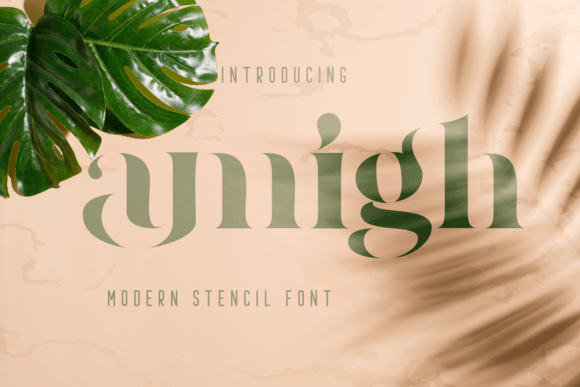
Introducing Amigh Font: Elevate Your Designs with Elegance and Sophistication
In the world of typography, a font can make or break the visual appeal of a design. If you’re looking for a stylish and elegant serif font that can add a touch of sophistication to your presentations, logos, or marketing materials, look no further than Amigh Font. This stunning font is designed to make your designs stand out from the crowd, with a range of ligatures and alternates that will take your creative projects to the next level.
What is Amigh Font?
Amigh Font is a beautifully crafted serif font that exudes elegance and refinement. Its classic design makes it perfect for a wide range of applications, from luxury brands and high-end products to editorial designs and digital media. With its sophisticated look and feel, Amigh Font is sure to impress your audience and leave a lasting impression.
Key Features of Amigh Font
So, what sets Amigh Font apart from other fonts on the market? Here are some of its key features:
- Ligatures and Alternates: Amigh Font comes with a range of ligatures and alternates that allow you to add a touch of elegance and sophistication to your designs. With a variety of swashes and glyphs to choose from, you can create unique and eye-catching text that stands out from the crowd.
- Serif Design: The serif design of Amigh Font adds a touch of classic elegance to your designs. The subtle serifs create a sense of refinement and sophistication, making it perfect for high-end brands and luxury products.
Why Choose Amigh Font?
With so many fonts on the market, why choose Amigh Font? Here are just a few reasons why Amigh Font is a top choice for designers and marketers:
- Unique and Eye-Catching: Amigh Font is designed to make your designs stand out from the crowd. With its range of ligatures and alternates, you can create unique and eye-catching text that grabs attention and leaves a lasting impression.
- Versatile: Amigh Font is incredibly versatile, making it perfect for a wide range of applications. From luxury brands and high-end products to editorial designs and digital media, Amigh Font can be used in any design project that requires a touch of elegance and sophistication.
- Customize Your Text: Use Amigh Font’s range of ligatures and alternates to customize your text. Experiment with different combinations to create unique and eye-catching text that takes your designs to the next level.
Tips and Tricks for Getting the Most Out of Amigh Font
Here are some tips and tricks for getting the most out of Amigh Font:
- Experiment with Ligatures and Alternates: Don’t be afraid to experiment with Amigh Font’s range of ligatures and alternates. Try out different combinations to create unique and eye-catching text.
- Use it for Headings and Titles: Amigh Font is perfect for headings and titles. Use it to add a touch of elegance and sophistication to your designs.
- Pair it with Other Fonts: Amigh Font pairs well with a range of other fonts. Experiment with different pairings to create stunning text that takes your designs to the next level.
Amigh Font is a stylish and elegant serif font that is sure to elevate your designs. With its range of ligatures and alternates, PUA encoding, and classic design, it’s the perfect choice for designers and marketers looking to add a touch of sophistication to their creative projects. Whether you’re working on a luxury brand, high-end product, or editorial design, Amigh Font is the perfect choice. So why wait? Download Amigh Font today and take your designs to the next level!